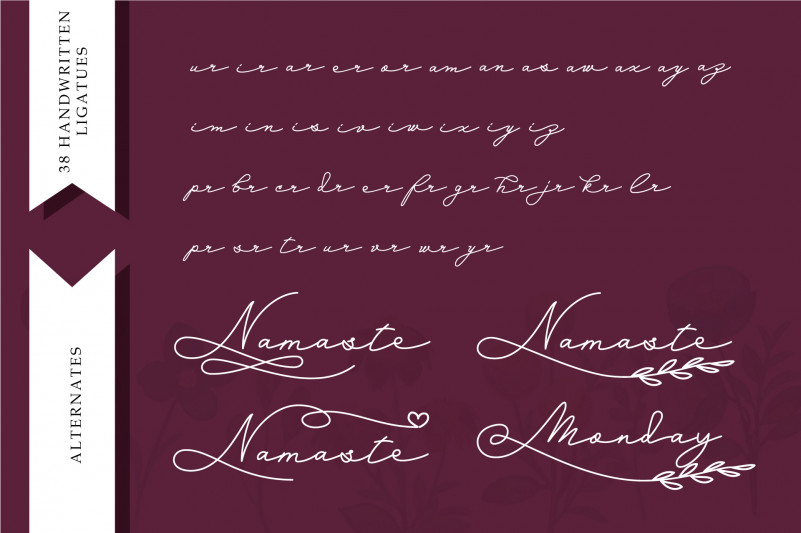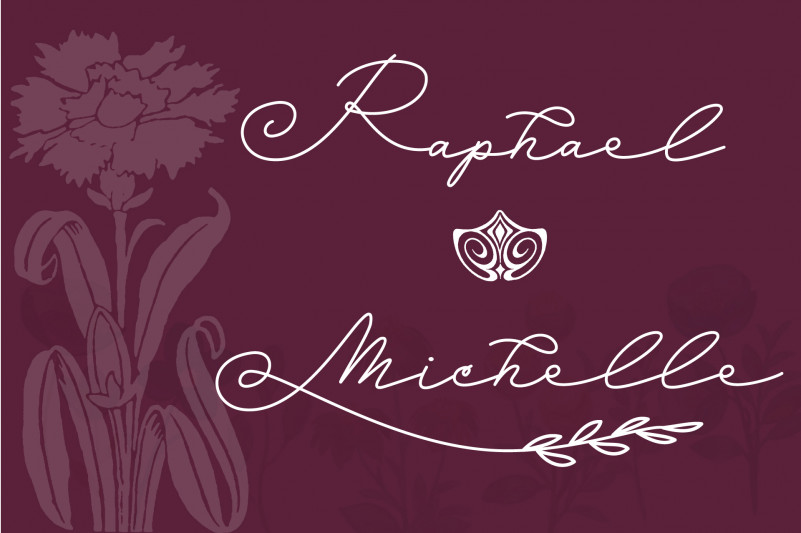
Budapest Girl Handwritten Font
Budapest Girl Handwritten Font is a simple handwriting script typeface with cool ligature features to play with. It’s feminine look is suitable for lettering, wedding, invitations, and much more.